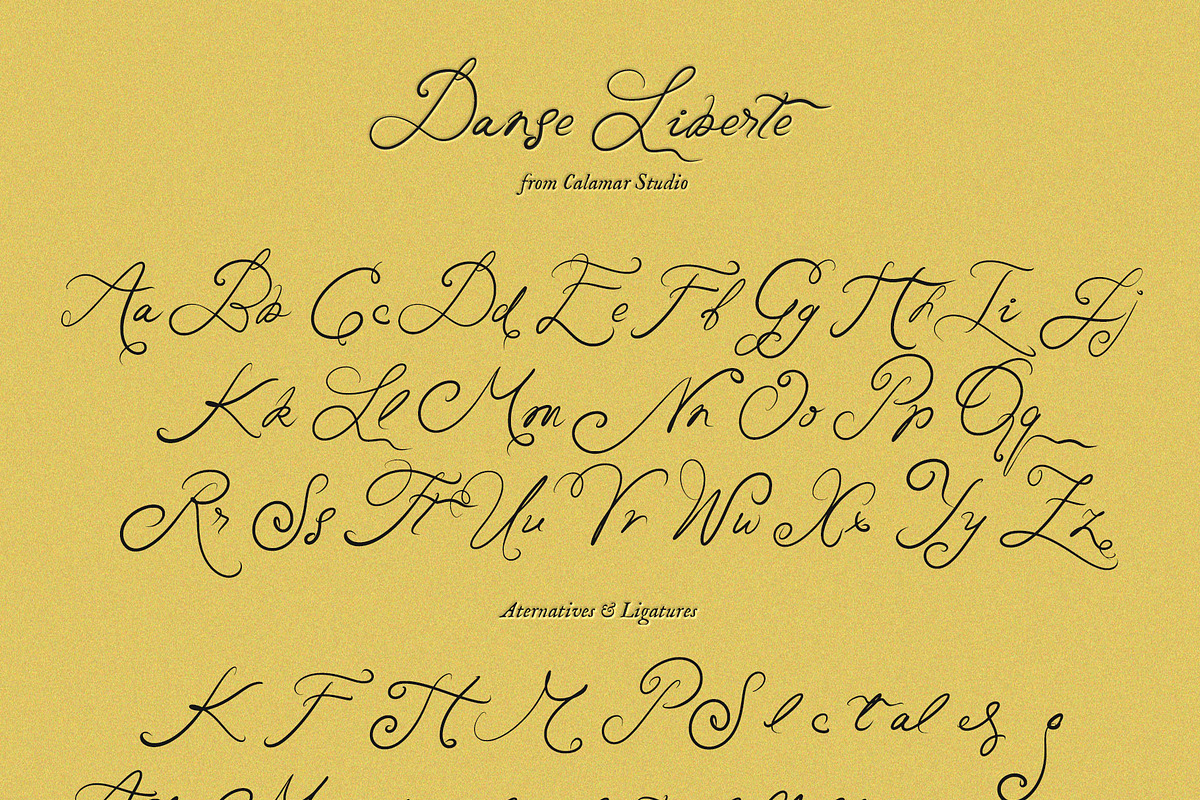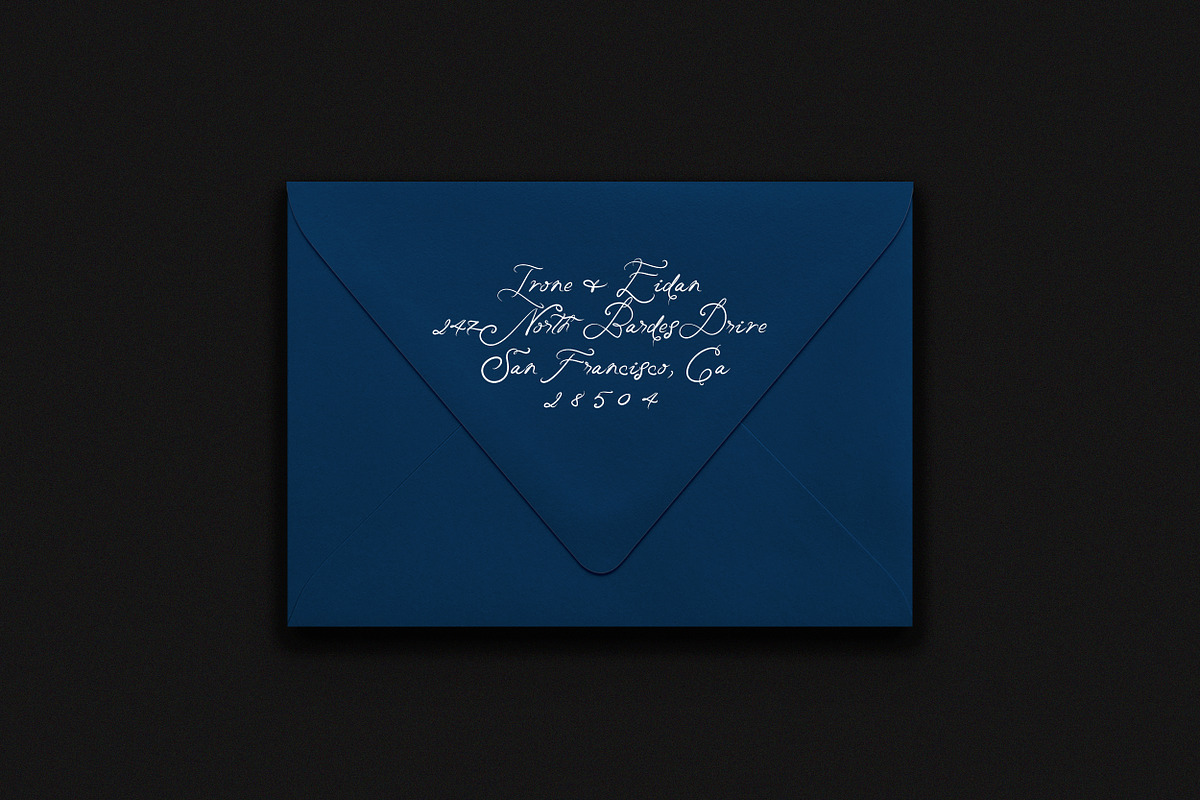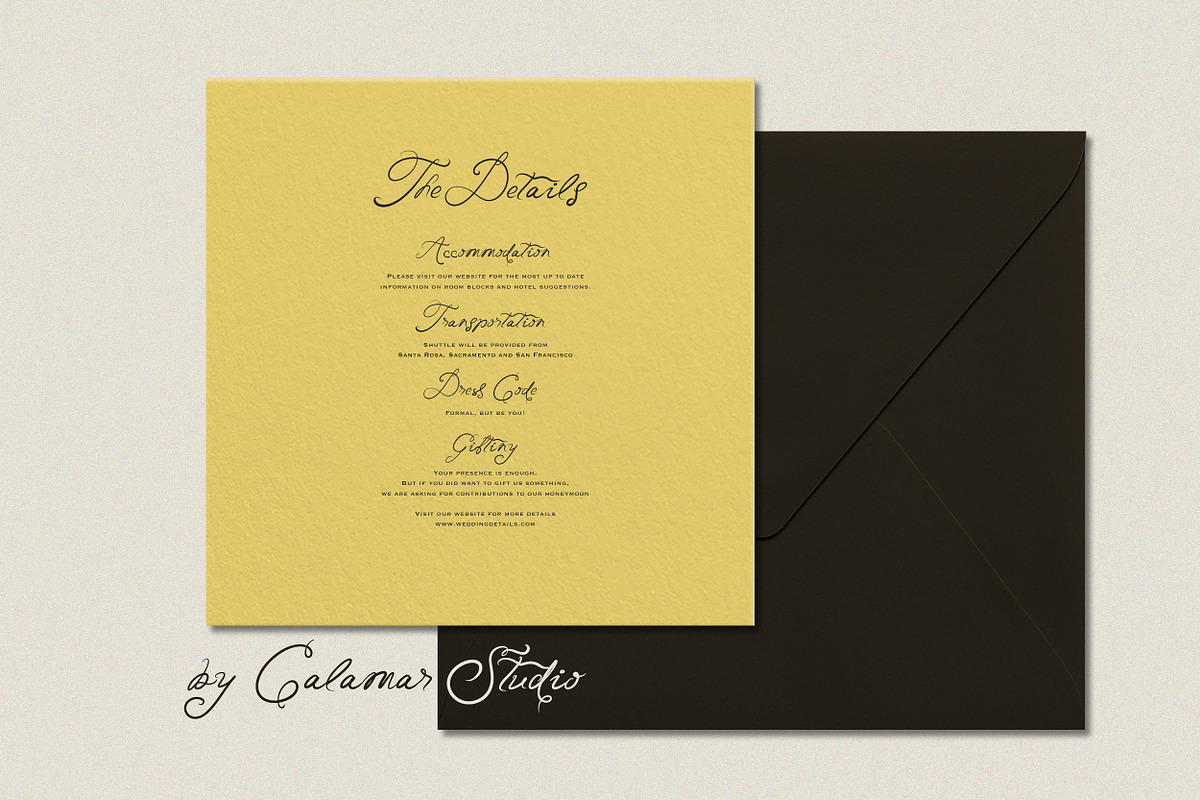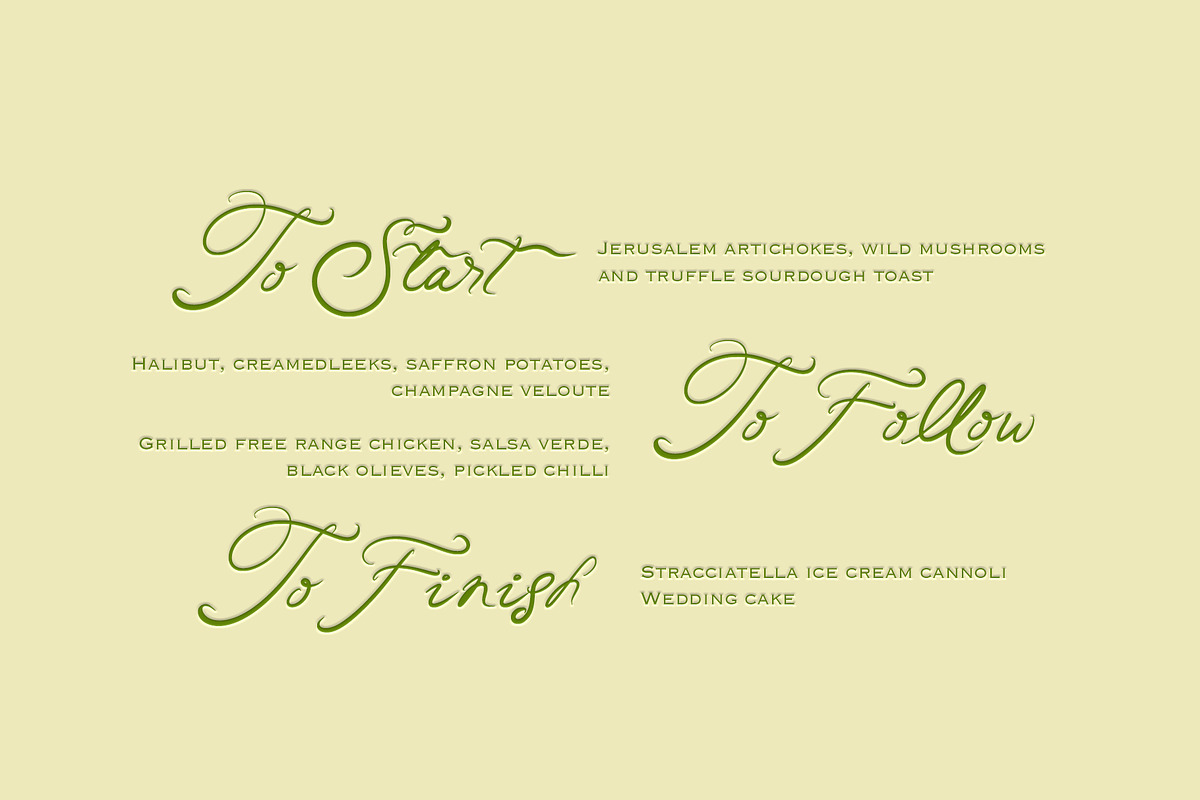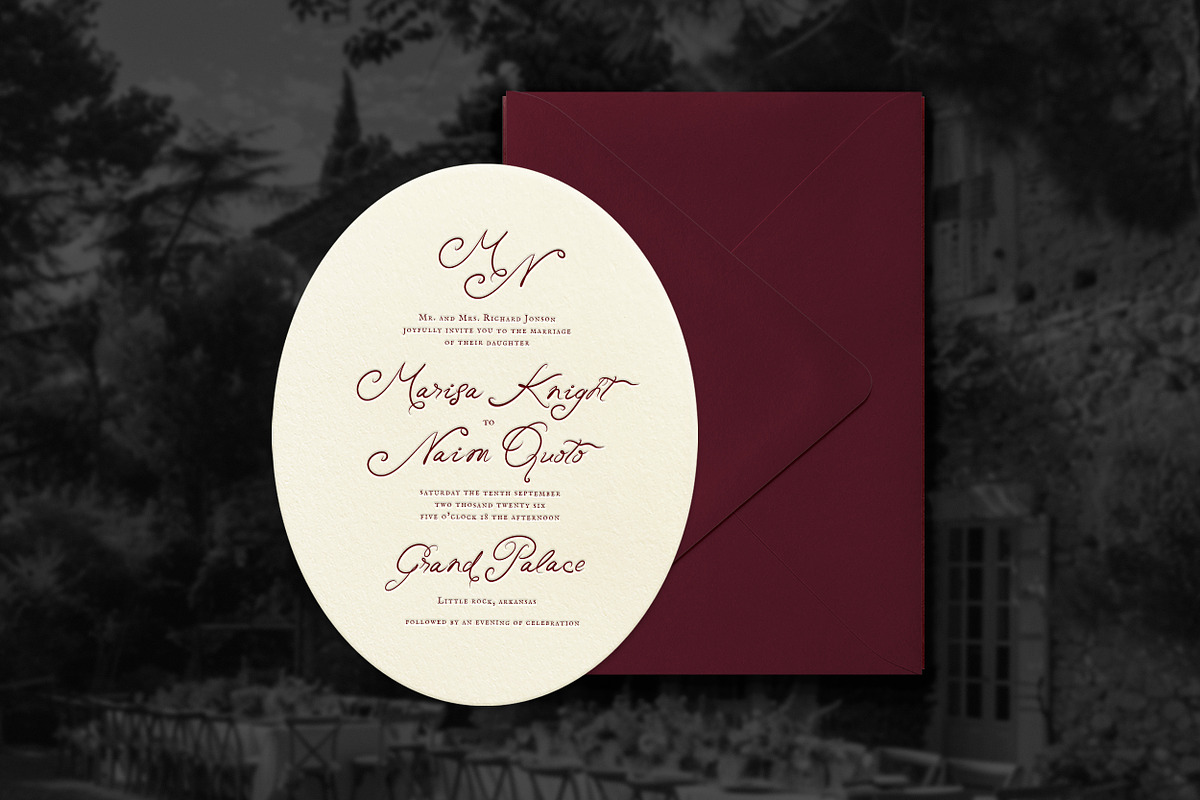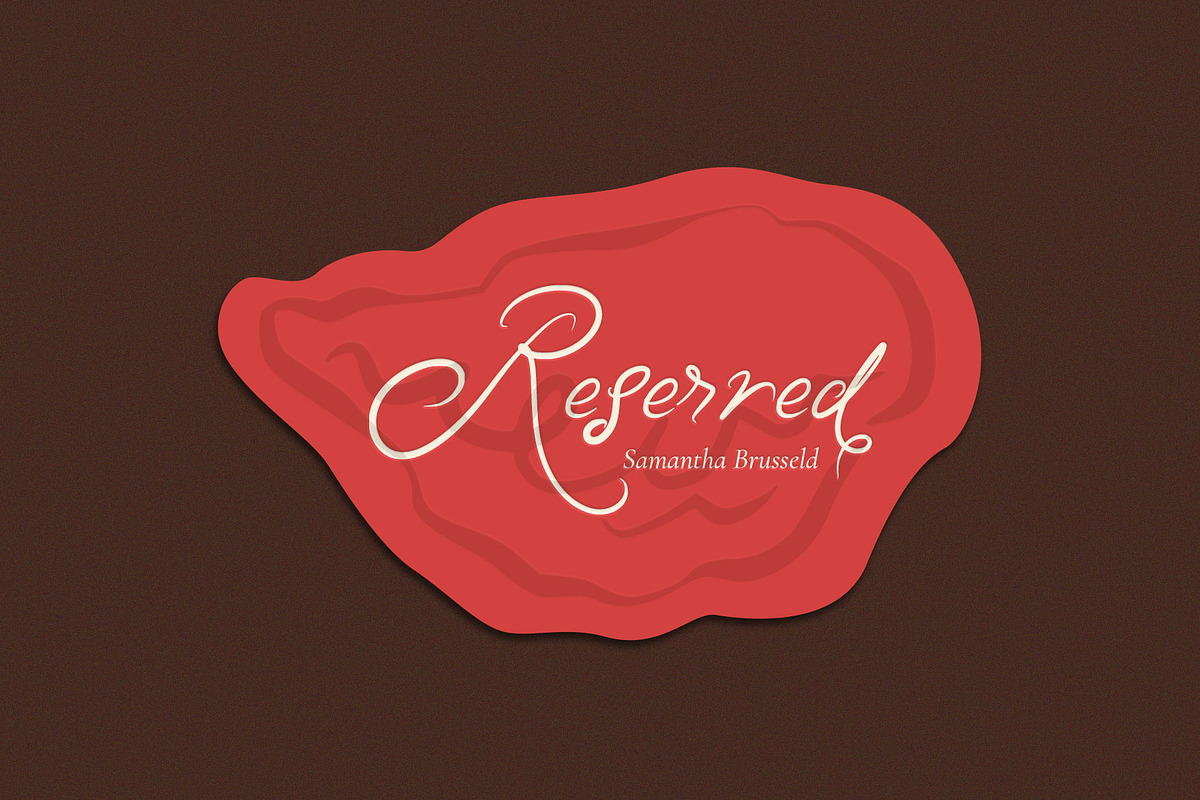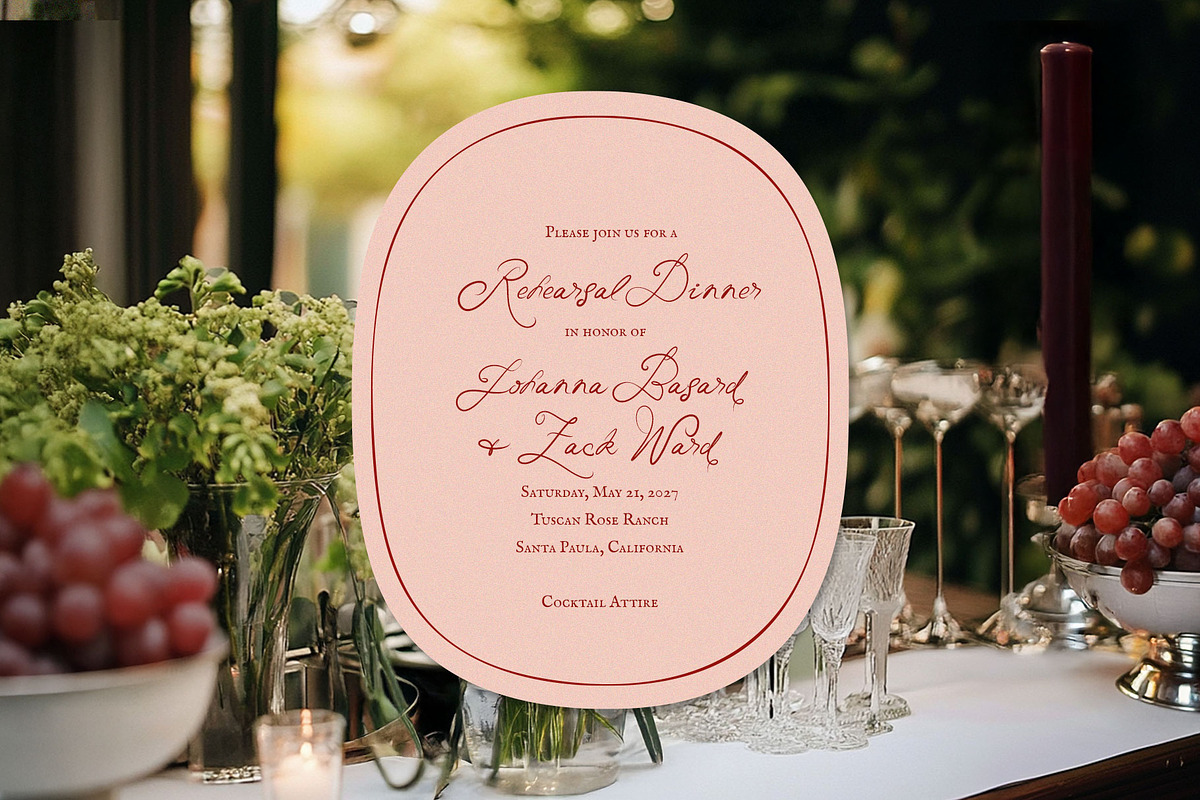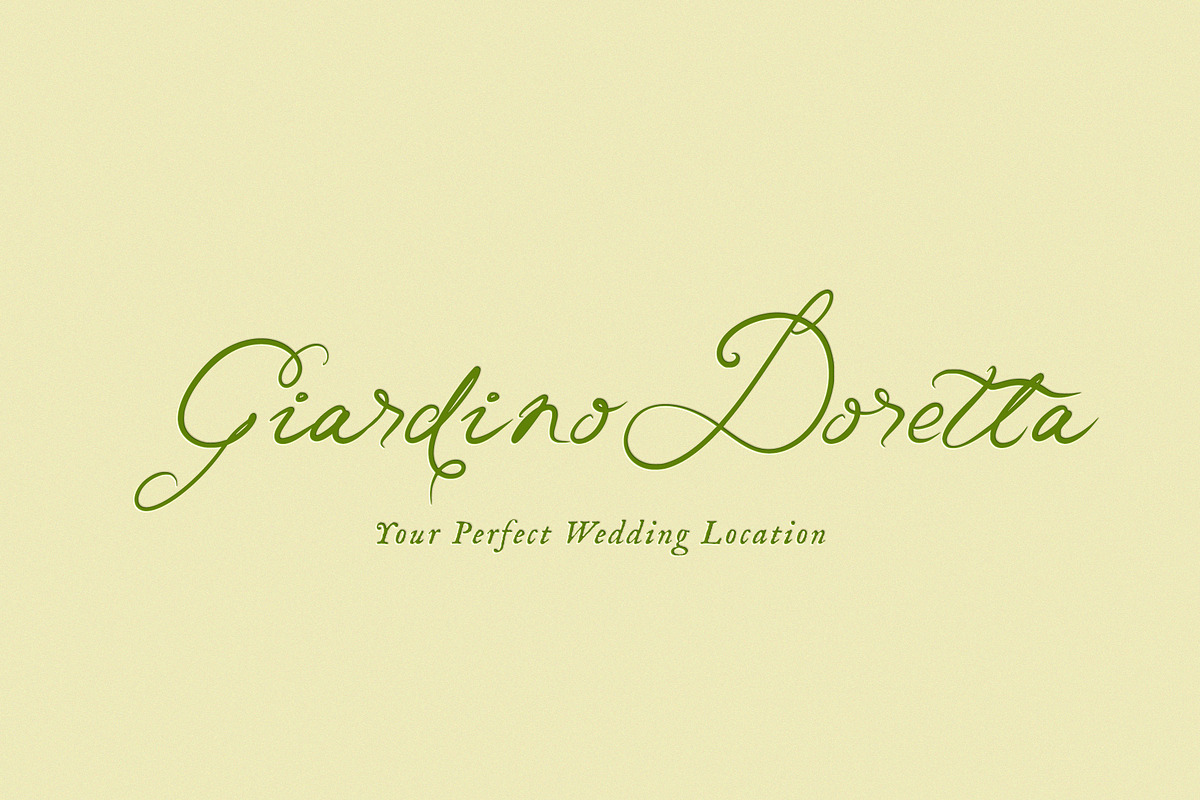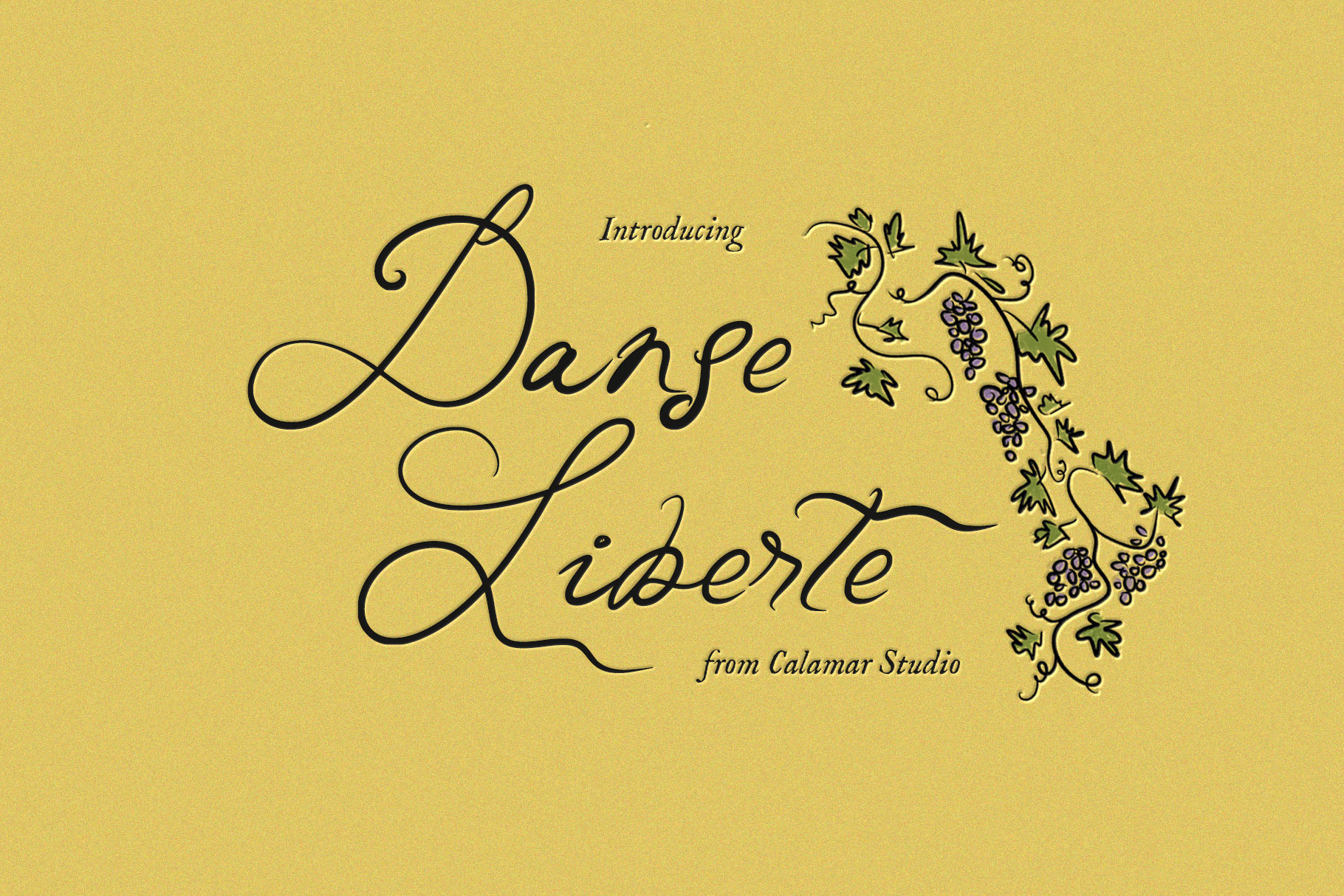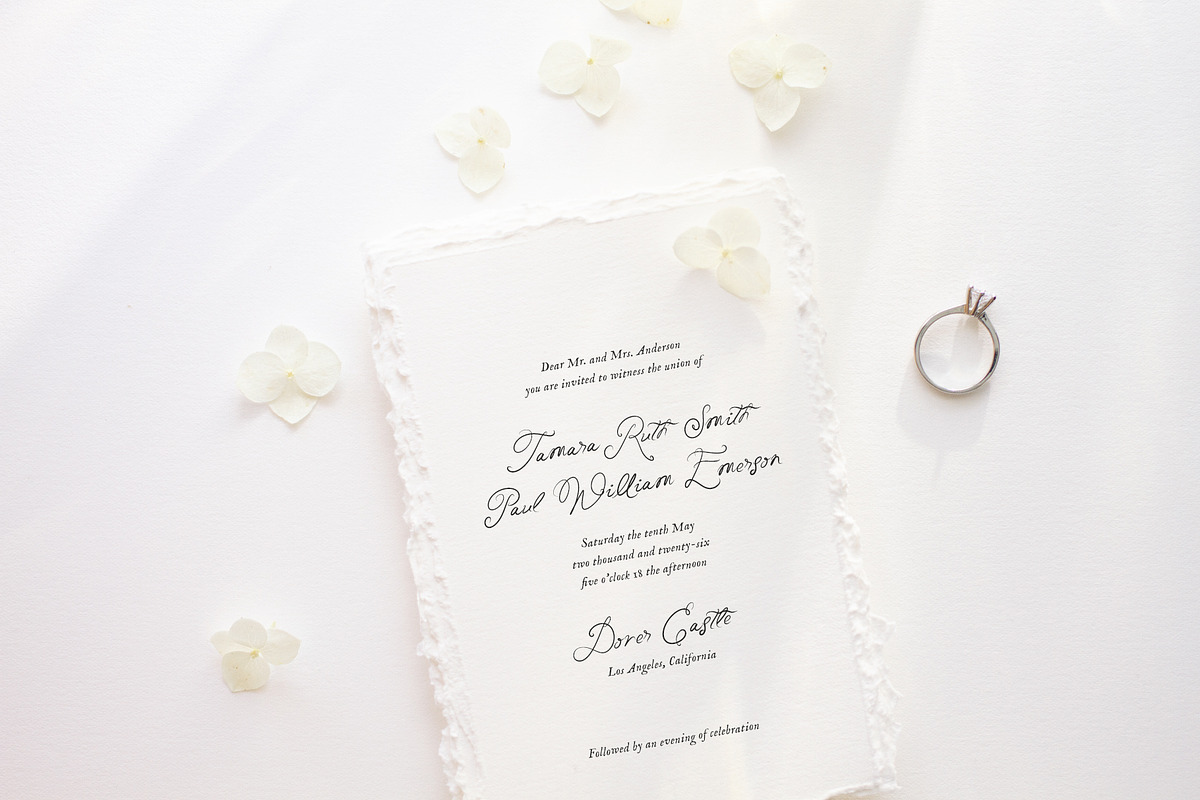
Danse Liberte Handwritten Font
Danse Liberte is a refined handwritten script inspired by graceful movement and timeless romance. With its flowing curves, elongated swashes, and delicate contrast, this font captures the elegance of modern fine art weddings.
Each letter was carefully crafted to create a natural rhythm and sophisticated feel, making it perfect for statement titles and elevated wedding stationery.
Danse Liberte is especially beautiful in title case and lowercase compositions, where its expressive capitals and soft connections truly shine.
Perfect for wedding invitations, save the dates, menus & place cards, bridal branding, luxury packaging, social media graphics, logos and signatures.
Danse Liberte pairs beautifully with minimalist serif or clean sans-serif fonts, creating a balanced and refined design aesthetic.
If you are looking for a script that feels romantic yet confident, expressive yet sophisticated — Danse Liberte will add that effortless charm to your projects.